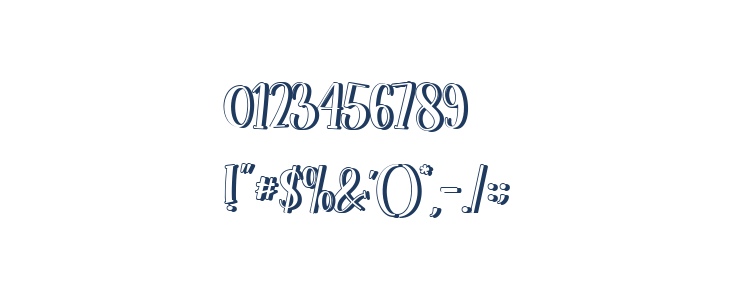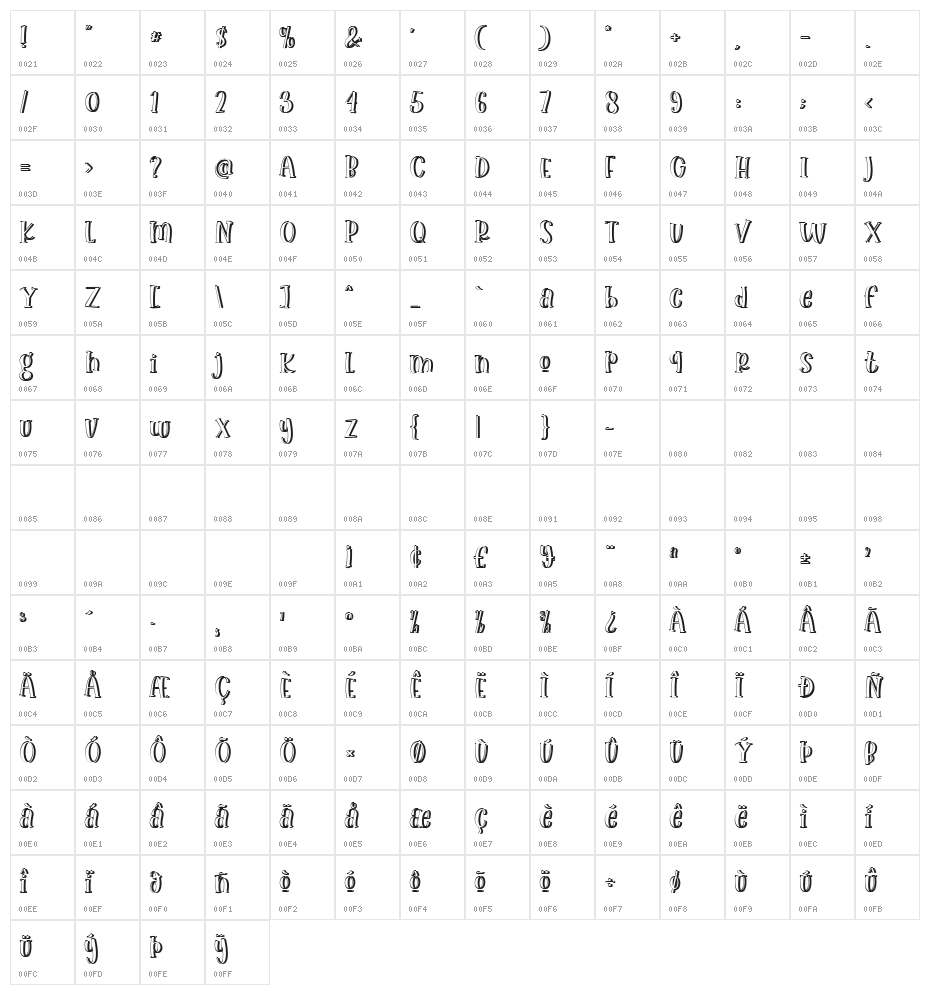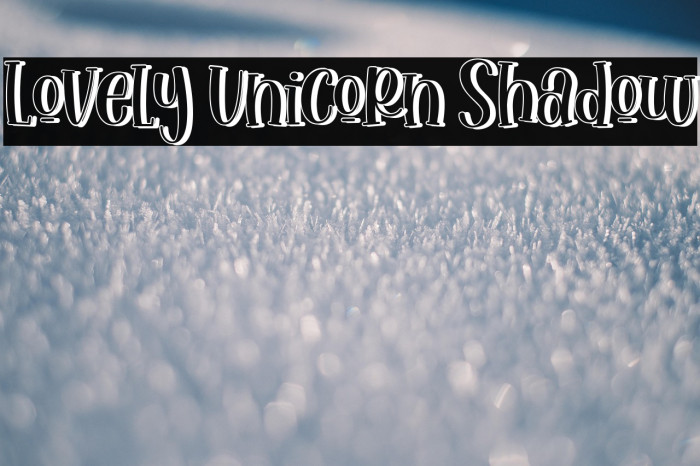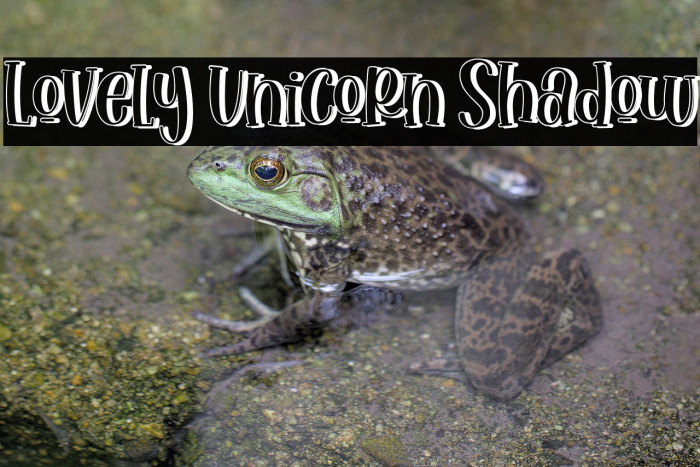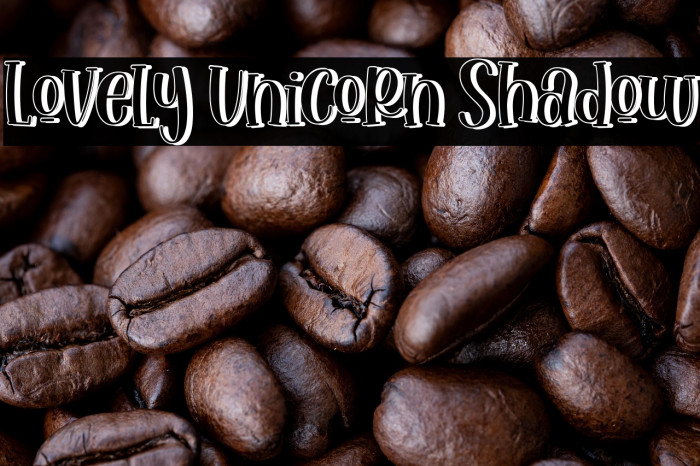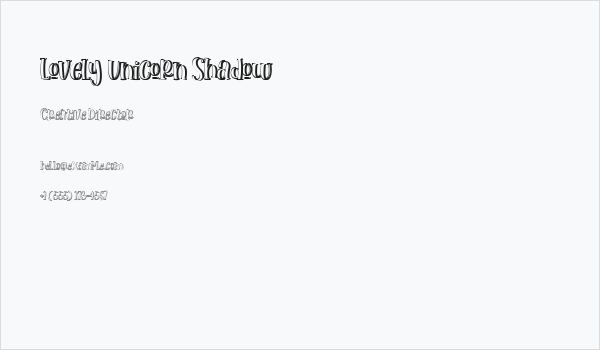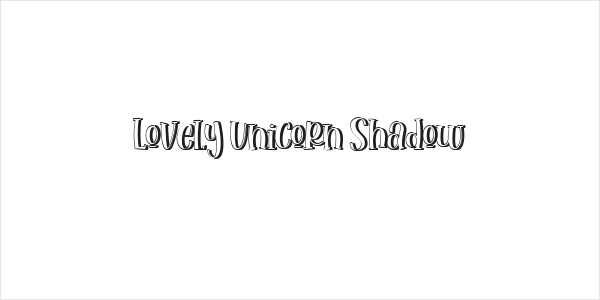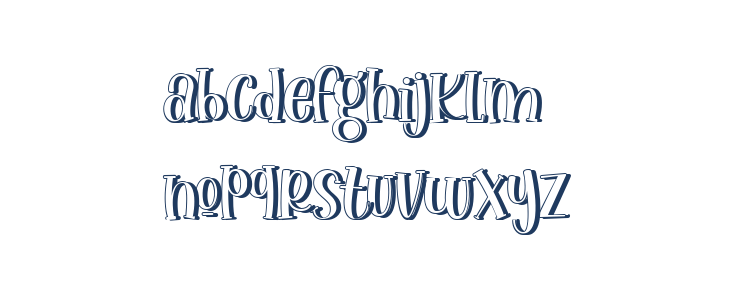
Lovely Unicorn Shadow Font
Lovely Unicorn Shadow Description
This playful and whimsical font features a bold, decorative style with a shadow effect that adds depth and dimension to each character. The letters are rounded and slightly elongated, giving them a friendly and approachable appearance. The uppercase and lowercase letters maintain a consistent style, with a slight curl at the ends of certain strokes, enhancing the font's playful nature. The numbers and special characters follow the same design principles, ensuring uniformity across all glyphs. This font is ideal for projects that require a fun and engaging look, such as children's books, party invitations, or playful branding.
| Overall Style | Playful, Whimsical, Decorative |
| Proposed Projects | Ideal for children's books, party invitations, playful branding, and creative posters. |